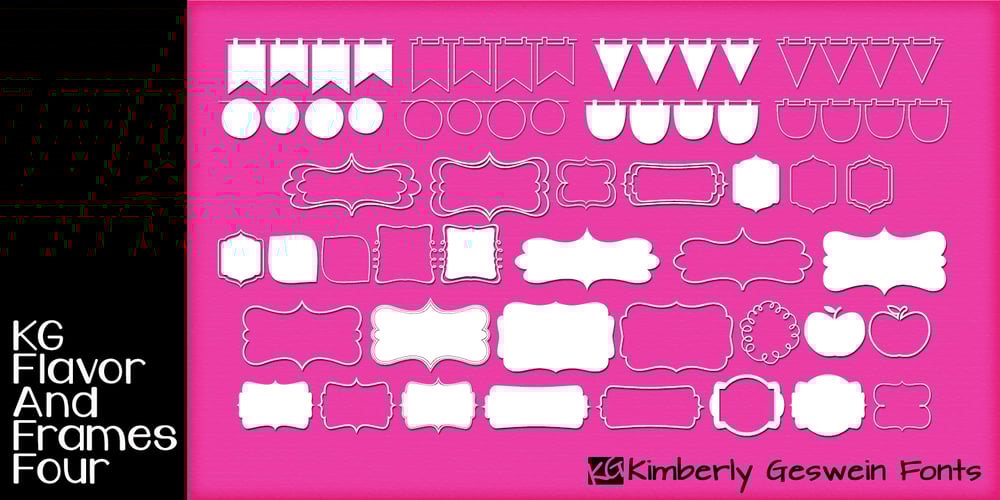
KG Flavor And Frames Four
KG Flavor And Frames Four font
KG Flavor And Frames Four Font Family was designed by Kimberly Geswein and published by Kimberly Geswein. KG Flavor And Frames Four contains 1 styles and family package options. Fun frames and borders in a variety of styles. Note that the pennants can be typed in 2 lengths– typing abab gives you a continuous pennant border. This works for all of the pennant and bunting styles– abab, cdcd, efef, ghgh, ijij, etc… 🙂